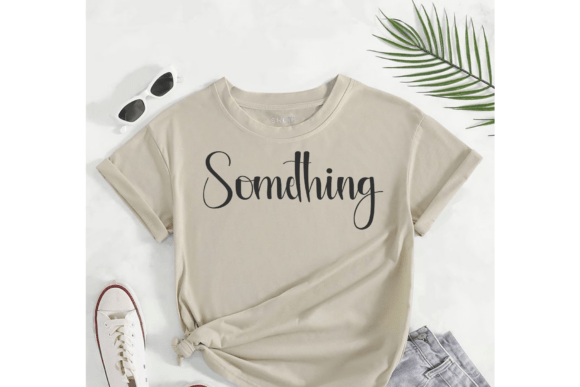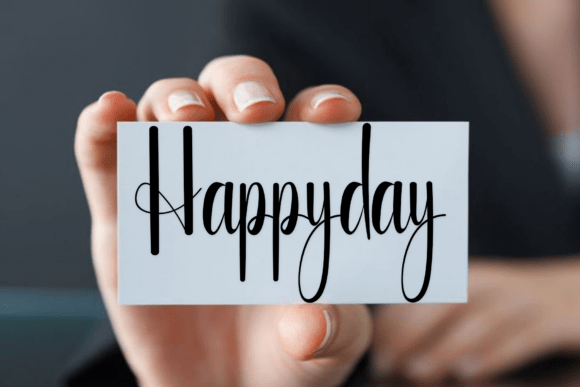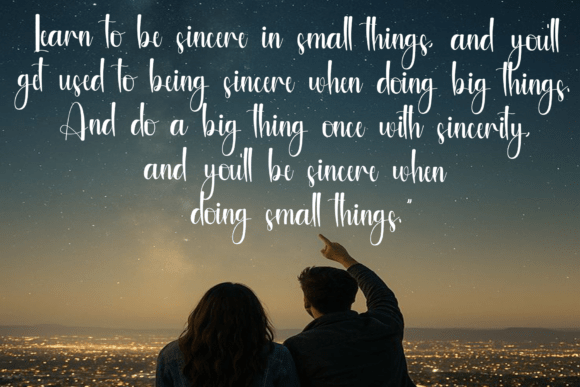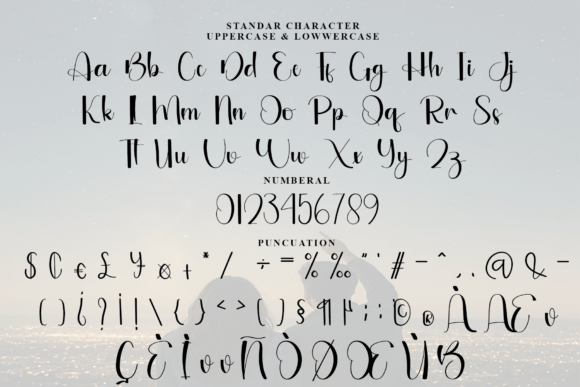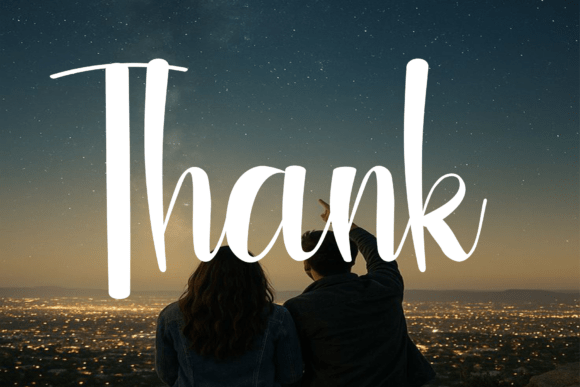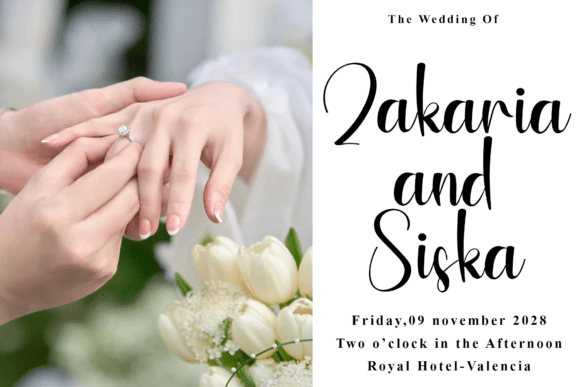
The Girlfriend Font: A Modern Minimalist’s Dream
- ✨ Sleek and modern monolinear handwritten style
- ✅ Professional yet approachable feel
- 💯 Tall, slender characters with soft curves
- 🎯 Excellent for interior design branding, real estate logos, and contemporary lifestyle magazines
While Girlfriend is an amazing font, there are a few things to keep in mind:
- ⚠️ Limited character set: Girlfriend has a standard character set, but it might not have all the special characters or glyphs you need for a specific project.
- 🤔 Not ideal for body text: Due to its slender and cursive nature, Girlfriend works best as a display font or for short paragraphs.
Girlfriend was designed with the goal of creating a modern and minimalist font that embodies the spirit of contemporary design. Its creator drew inspiration from the clean lines and simple shapes of modern architecture, combining them with the fluidity and elegance of handwritten script.
| Font Name | Girlfriend Font |
| Author | Plafont store |
Q: What is the x-height of Girlfriend?
A: The x-height of Girlfriend is relatively high, which makes it perfect for display text and short paragraphs.
Q: Does Girlfriend support OpenType features?
A: Yes, Girlfriend supports basic OpenType features like ligatures and stylistic alternates, which can add some personality to your text.
Q: Can I use Girlfriend for body text?
A: While Girlfriend is a beautiful font, it’s best suited for display text or short paragraphs. For body text, you might want to choose a font with a more traditional design and better readability.